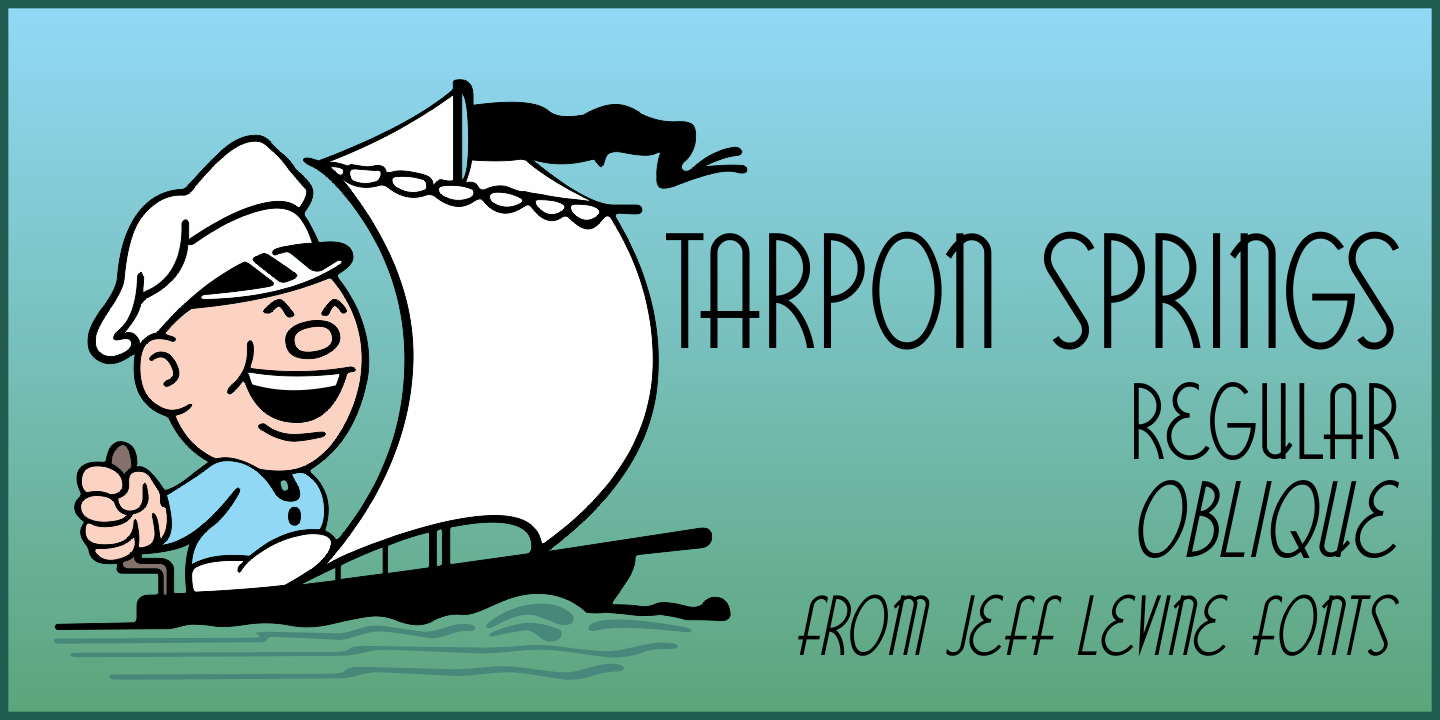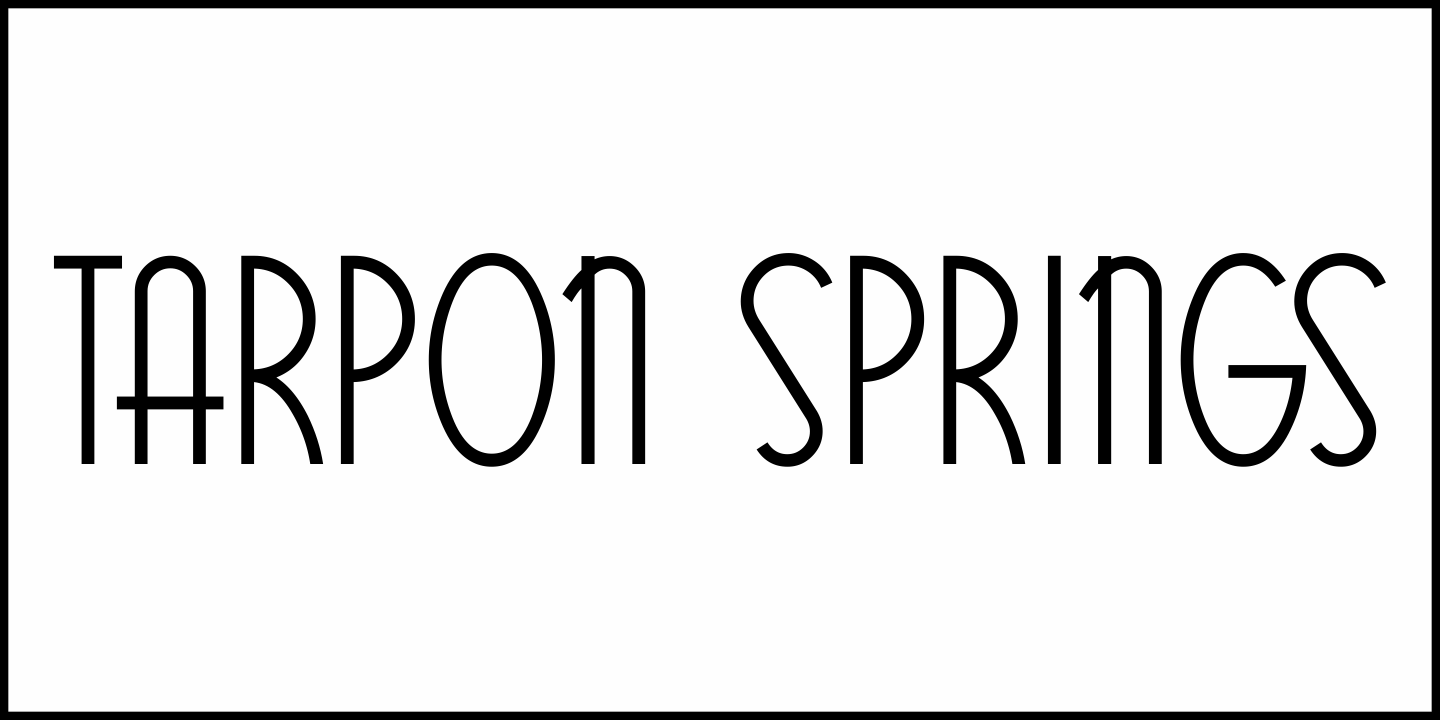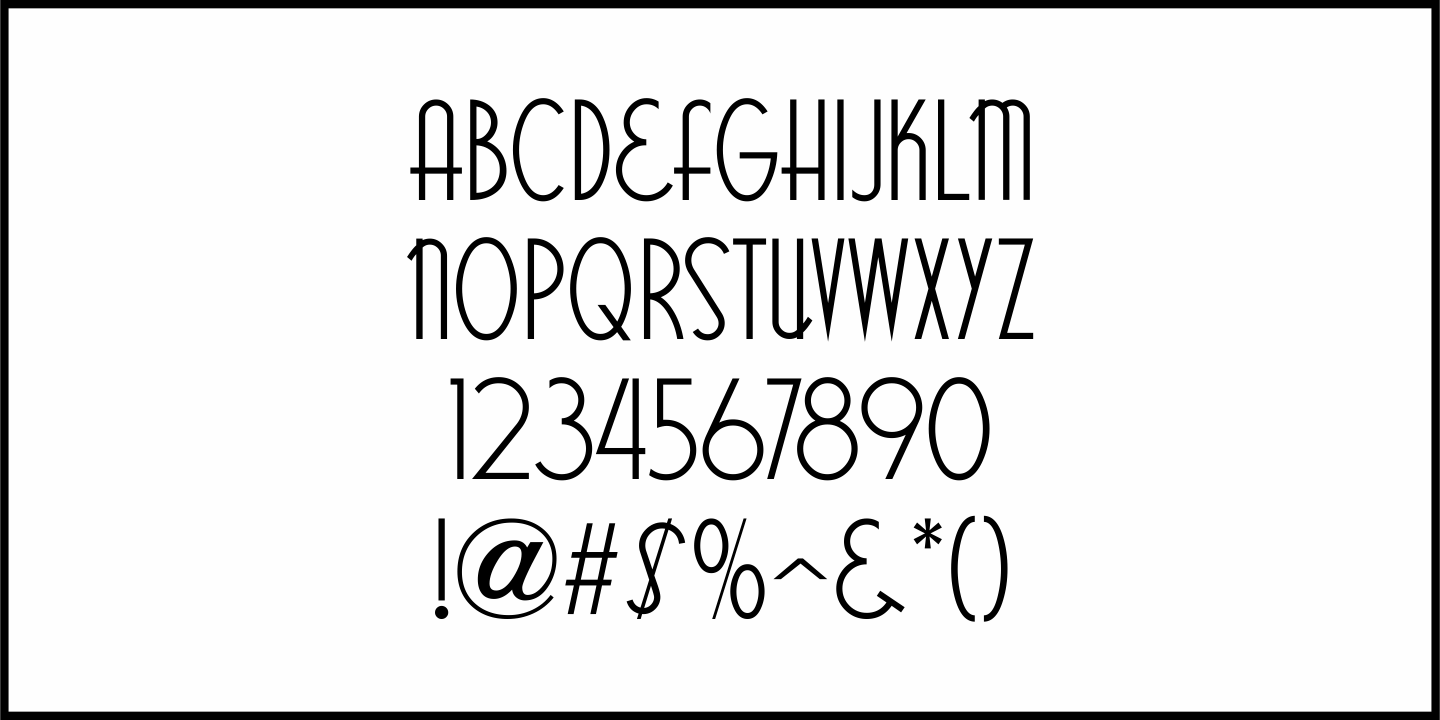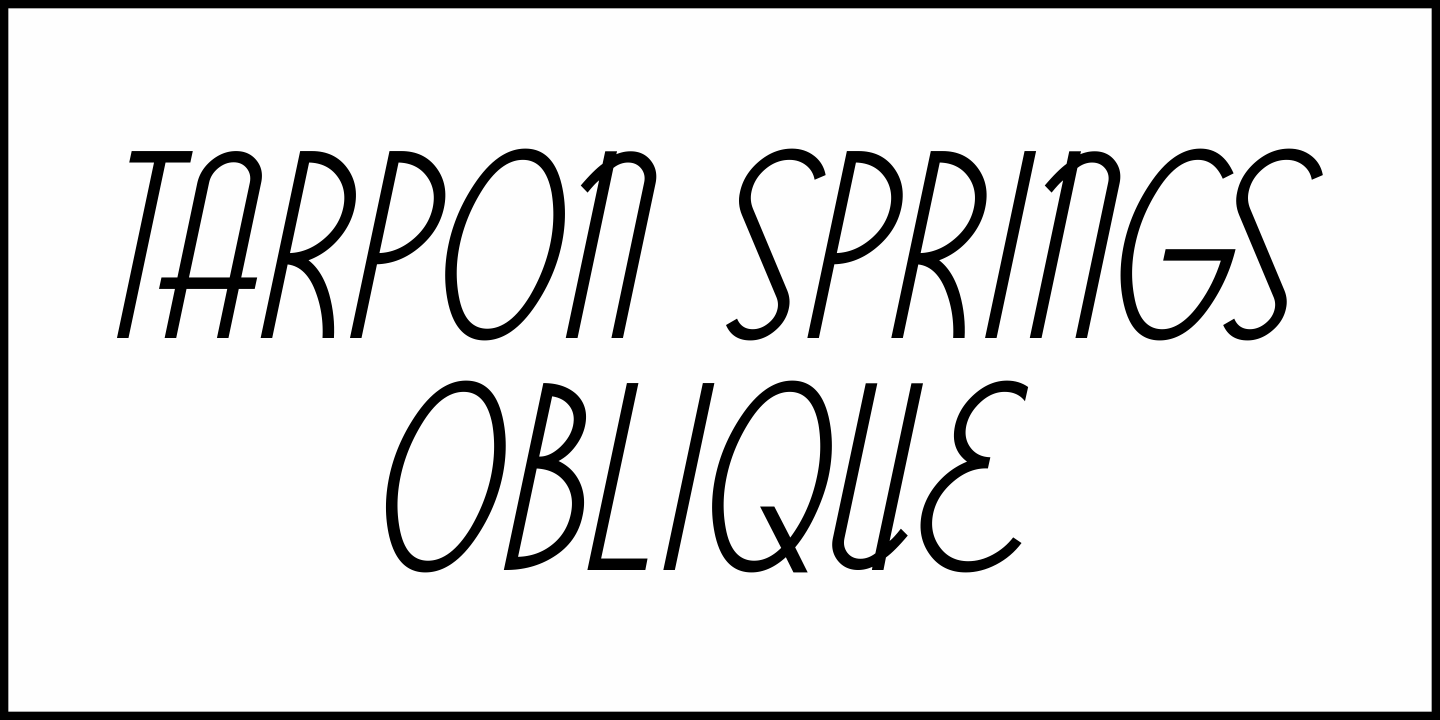
Tarpon Springs
Sometimes inspiration for font designs can come from the strangest sources.
An early-1960s Canadian magazine ad for a brand of birth control pills featured the least likely spokesperson – Annette Funicello ('starring in 'Beach Blanket Bingo' and 'How to Stuff A Wild Bikini'). The text was hand lettered in an Art Deco-inspired sans serif type design.
Tarpon Spring JNL is available in both regular and oblique versions.